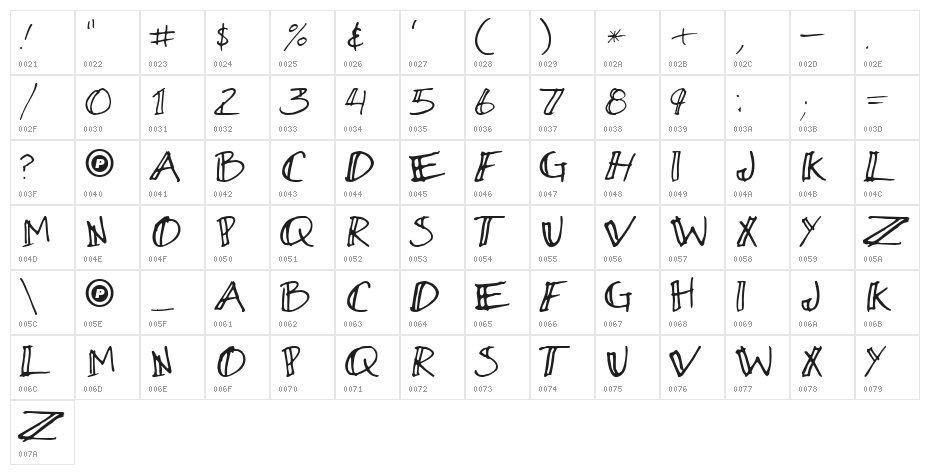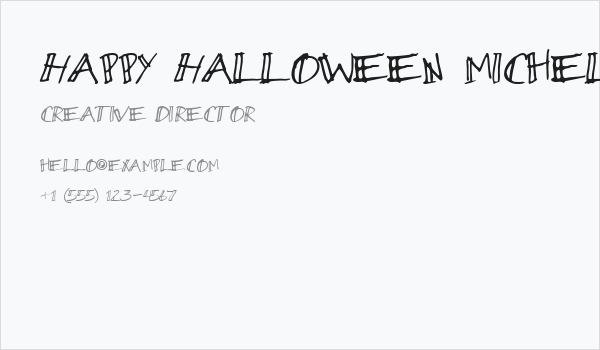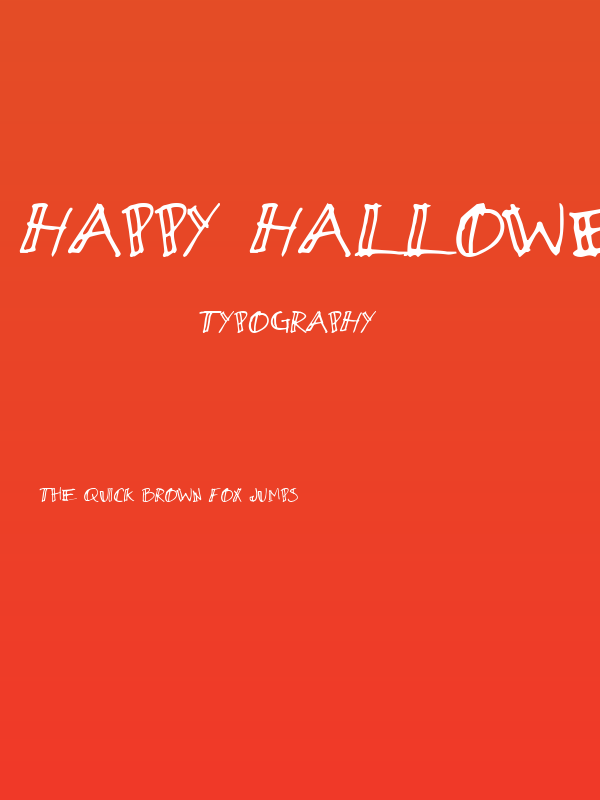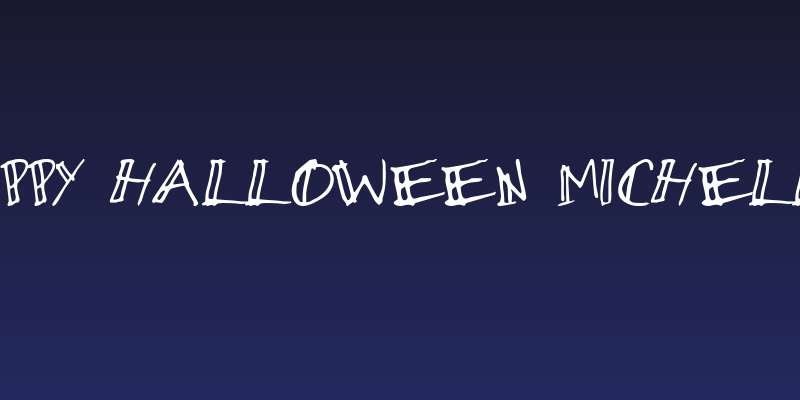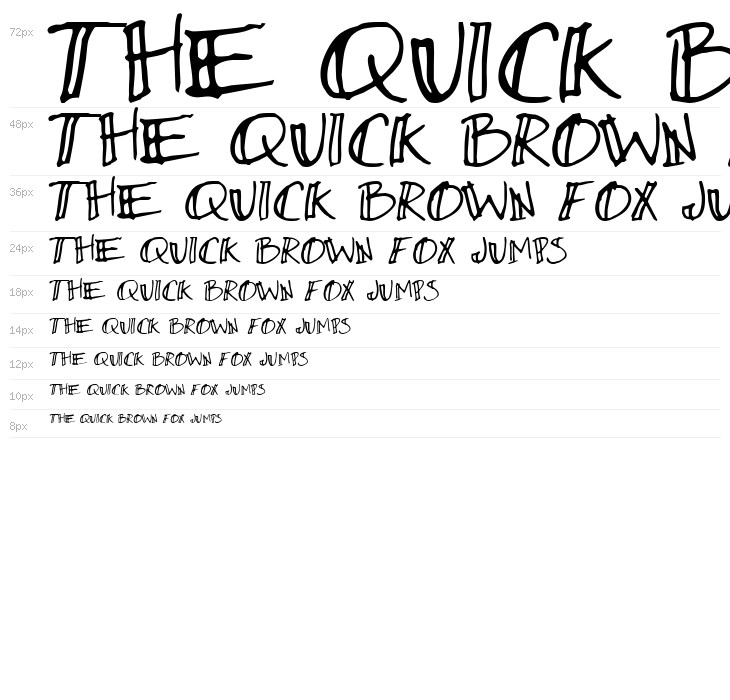
Happy Halloween Michelle Font
Happy Halloween Michelle Description
This font features a playful and spooky handwritten style, perfect for Halloween-themed designs. The letters have an irregular, slightly jagged appearance, giving them a whimsical yet eerie feel. The strokes vary in thickness, adding to the hand-drawn aesthetic. The uppercase and lowercase letters maintain a consistent style, with some characters having exaggerated curves and angles. The numbers and special characters follow the same design principles, ensuring a cohesive look across all elements. This font is ideal for creating eye-catching headlines or decorative text that captures the spirit of Halloween.
| Use Case | Headlines, Decorative text |
| Proposed Projects | Halloween invitations, spooky-themed posters, decorative banners, party flyers. |